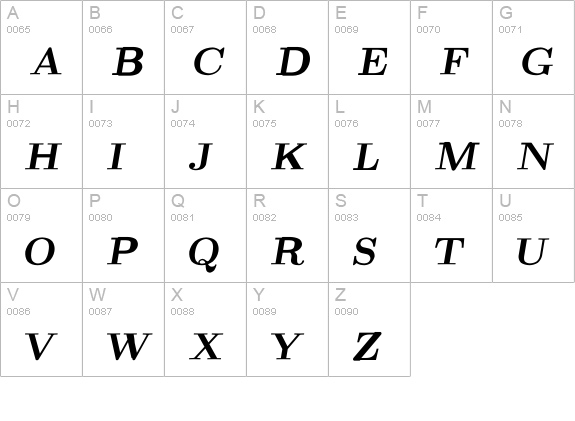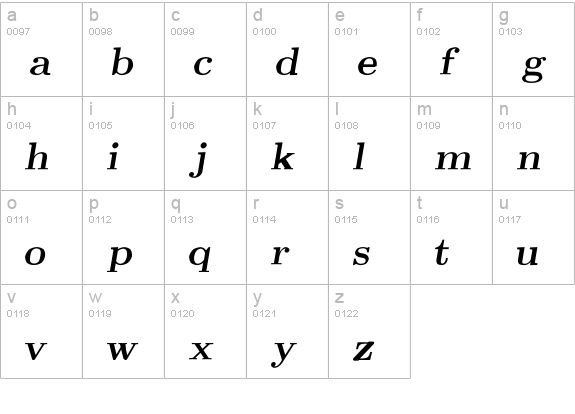
CM_Roman BoldSlantedExt Font Details
CM_Roman BoldSlantedExt font is a captivating and stylish typeface that exudes a sense of elegance and sophistication. With its bold slanted design, this font is perfect for creating eye-catching headings and titles that demand attention. The unique combination of Roman styling and modern flair makes CM_Roman BoldSlantedExt a versatile choice for a wide range of design projects. What makes CM_Roman BoldSlantedExt even more appealing is that it is available for free download at FontsMarket.com. This means that you can easily access this stunning font without any cost, allowing you to enhance your designs with a touch of class and refinement. Whether you are working on a print project, website design, or branding materials, CM_Roman BoldSlantedExt is sure to make a lasting impression. Download it today and elevate your design work to the next level.